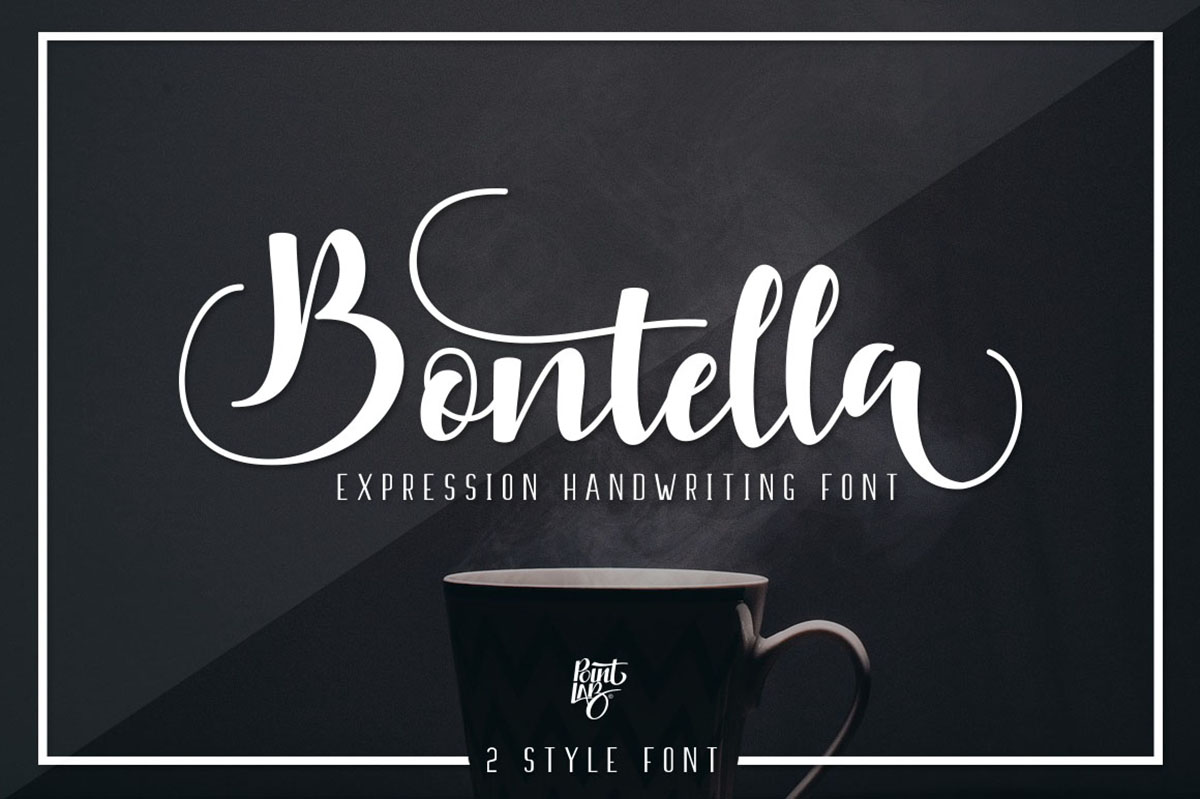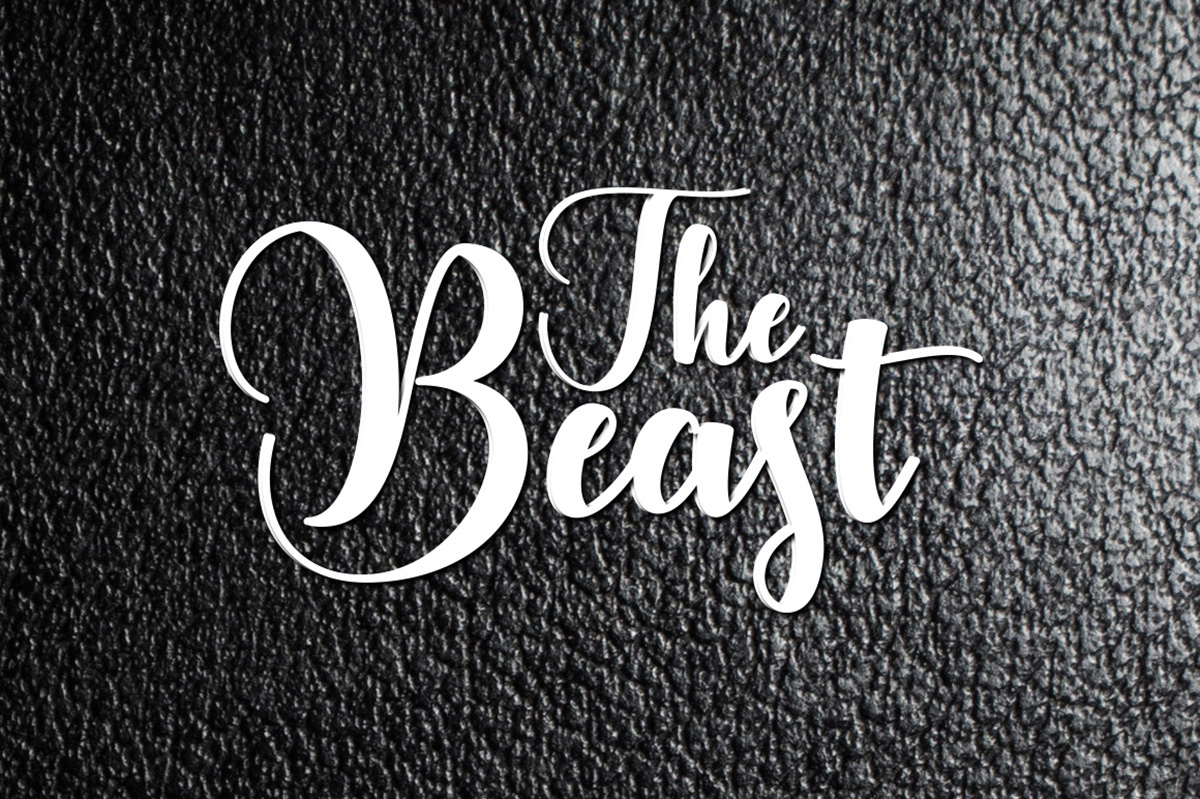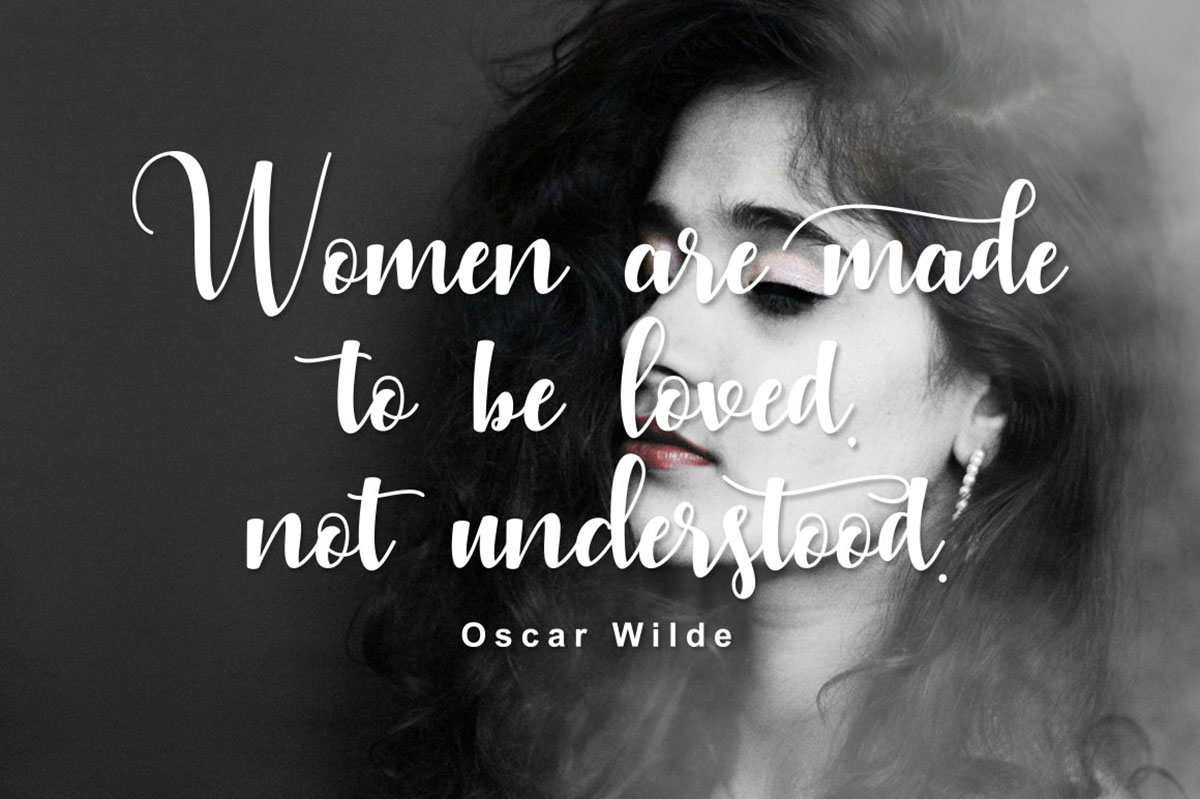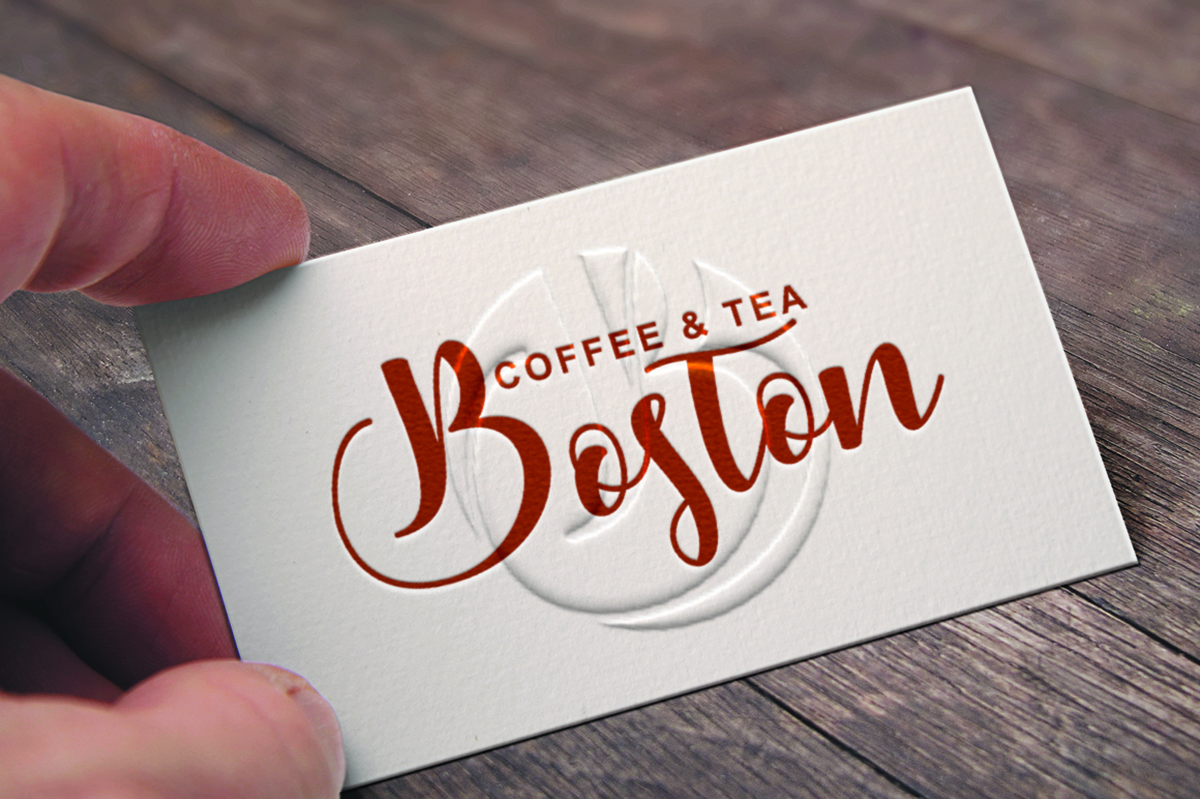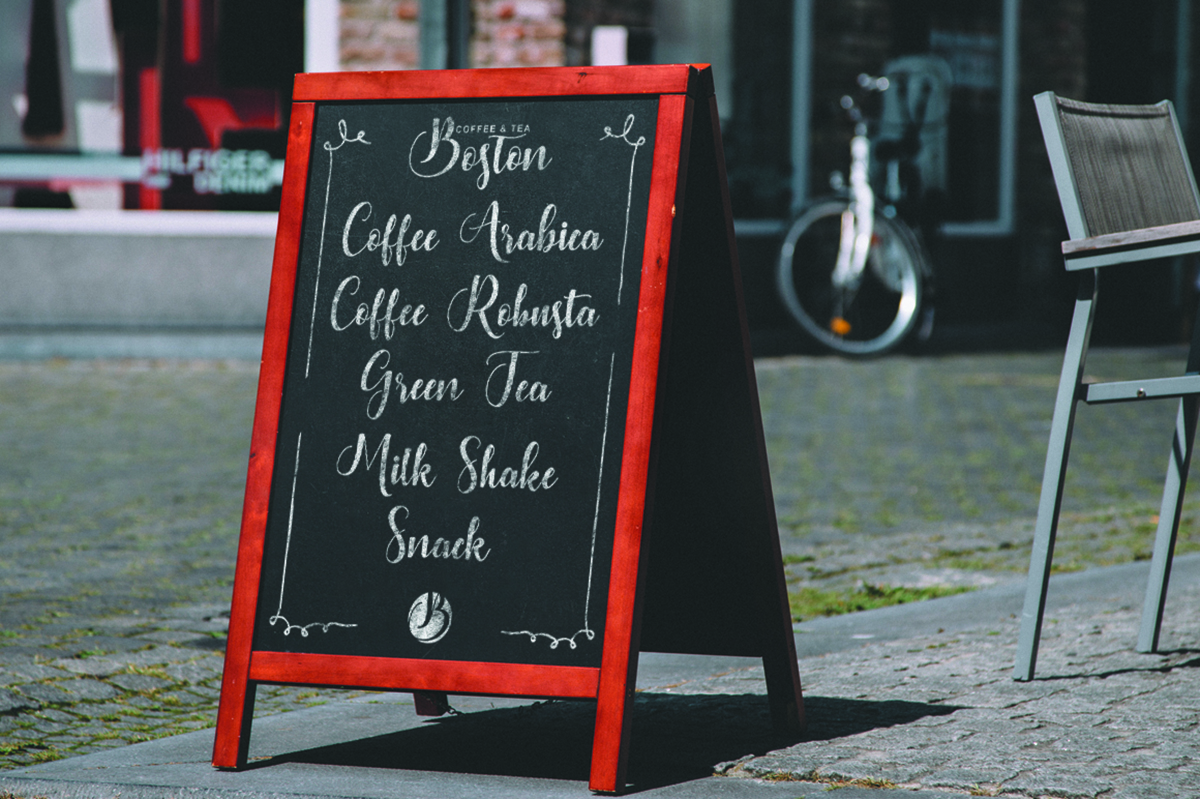
Bontella Free Font
Bontella Free Font is a new fresh & modern script with a handmade calligraphy style, decorative characters, and a dancing baseline! So beautiful on invitation like greeting cards, branding materials, business cards, quotes, posters, and more. Bontella Free Font comes with 420+ glyphs. The alternative characters were divided into several Open Type features such as Swash, Stylistic Sets, Stylistic Alternates, Contextual Alternates. The Open Type features can be accessed by using Open Types savvy programs such as Adobe Illustrator, Adobe InDesign, Adobe Photoshop Corel Draw X version, And Microsoft Word. And this Font has given PUA Unicode (specially coded fonts). So that all the alternate characters can easily be accessed in full by a craftsman or designer. This free typeface was designed by talented Pointlab Studio. If you like it don’t forget to check out the full version.